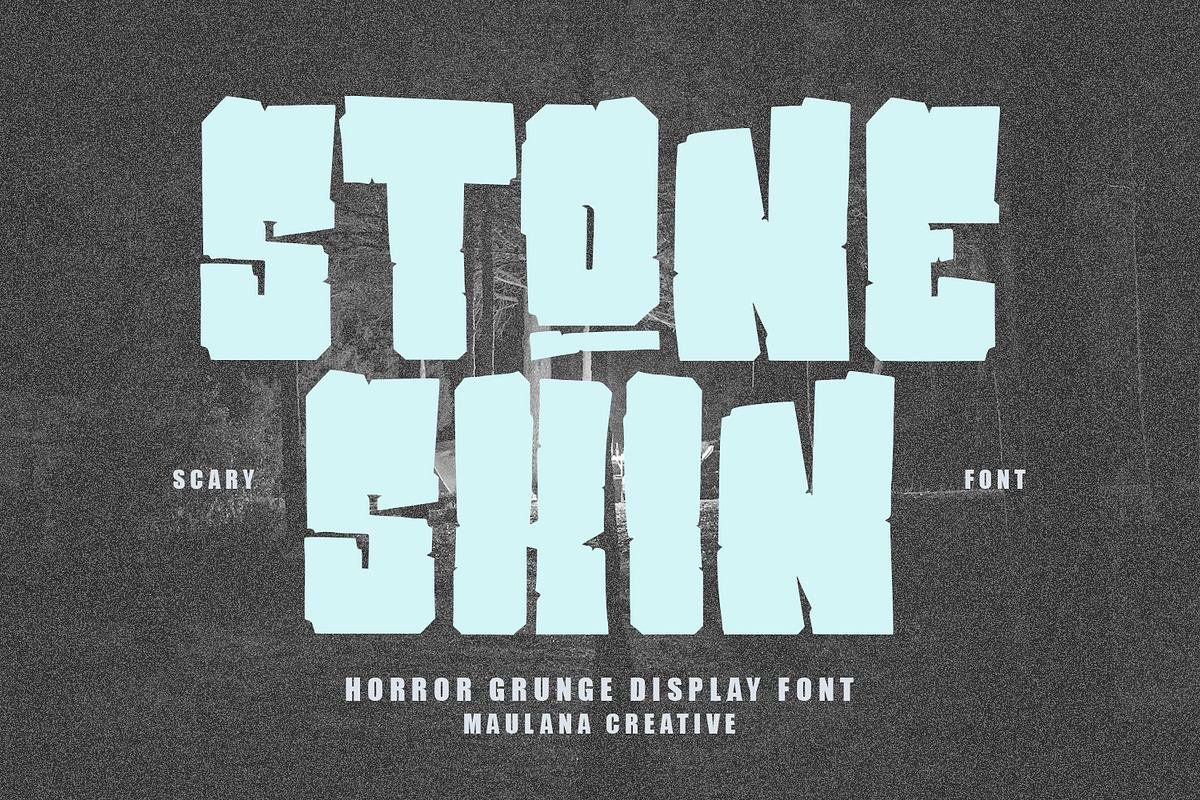
Stone Skin Horror Grunge Font Free Download
Stone Skin Horror Grunge Font Free Download is a bold, distressed display typeface designed for projects that need a gritty, dark, and intense vibe. Perfect for horror-themed designs, Halloween graphics, movie posters, album covers, and anything that requires a raw, grunge aesthetic, this font brings power and atmosphere to your designs.
With its rough, weathered texture and edgy letterforms, Stone Skin captures the essence of decay and unease, making it ideal for designs that want to invoke mystery, tension, or a horror-inspired theme.